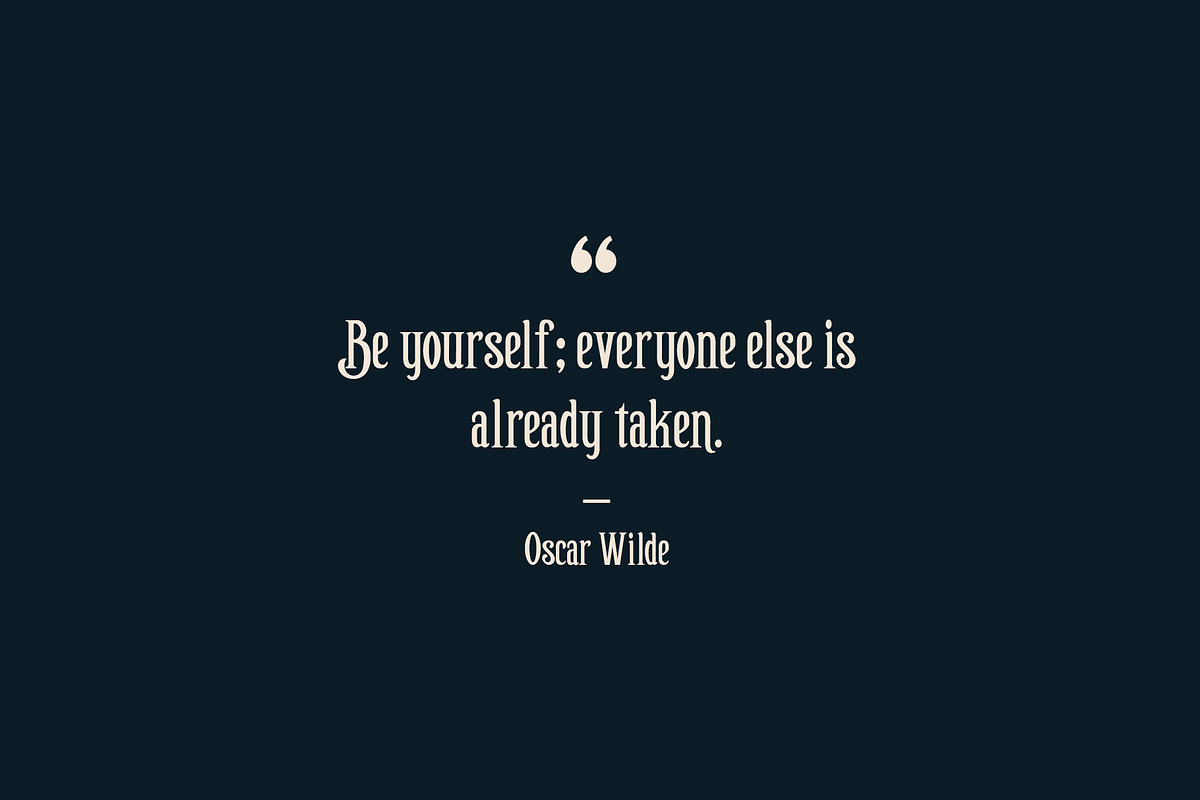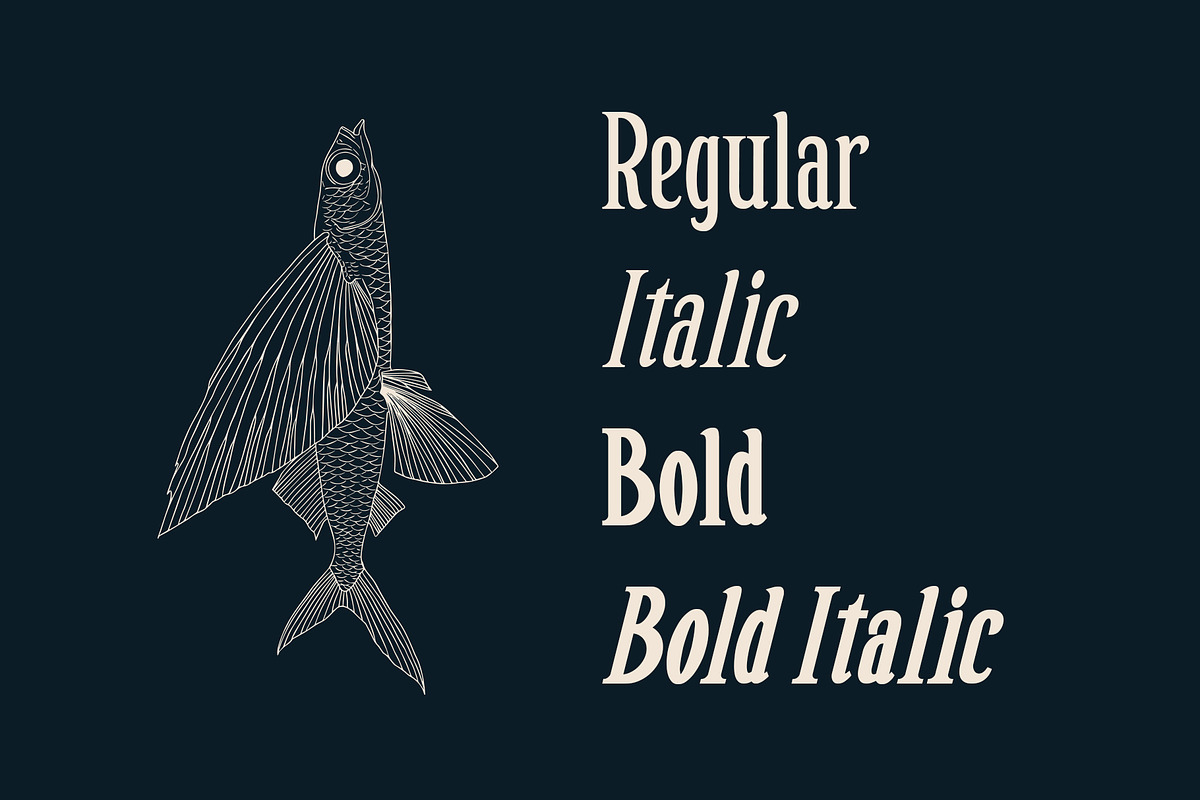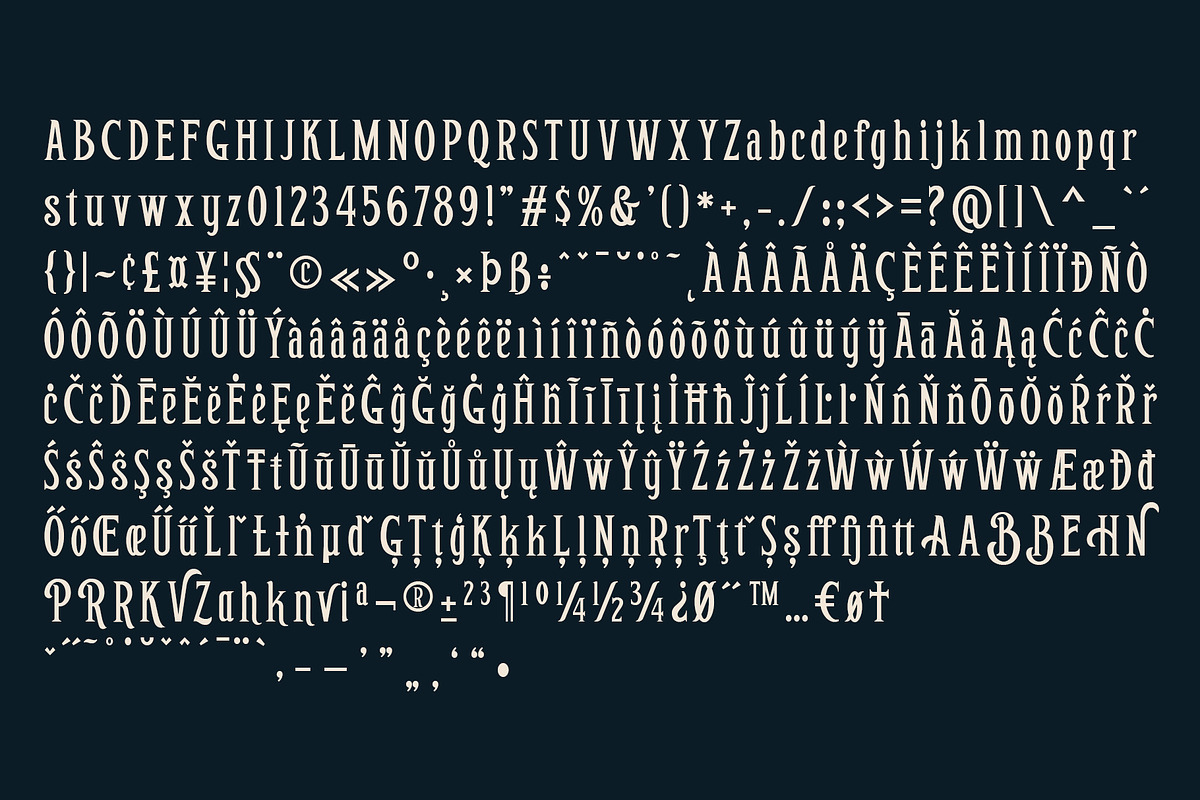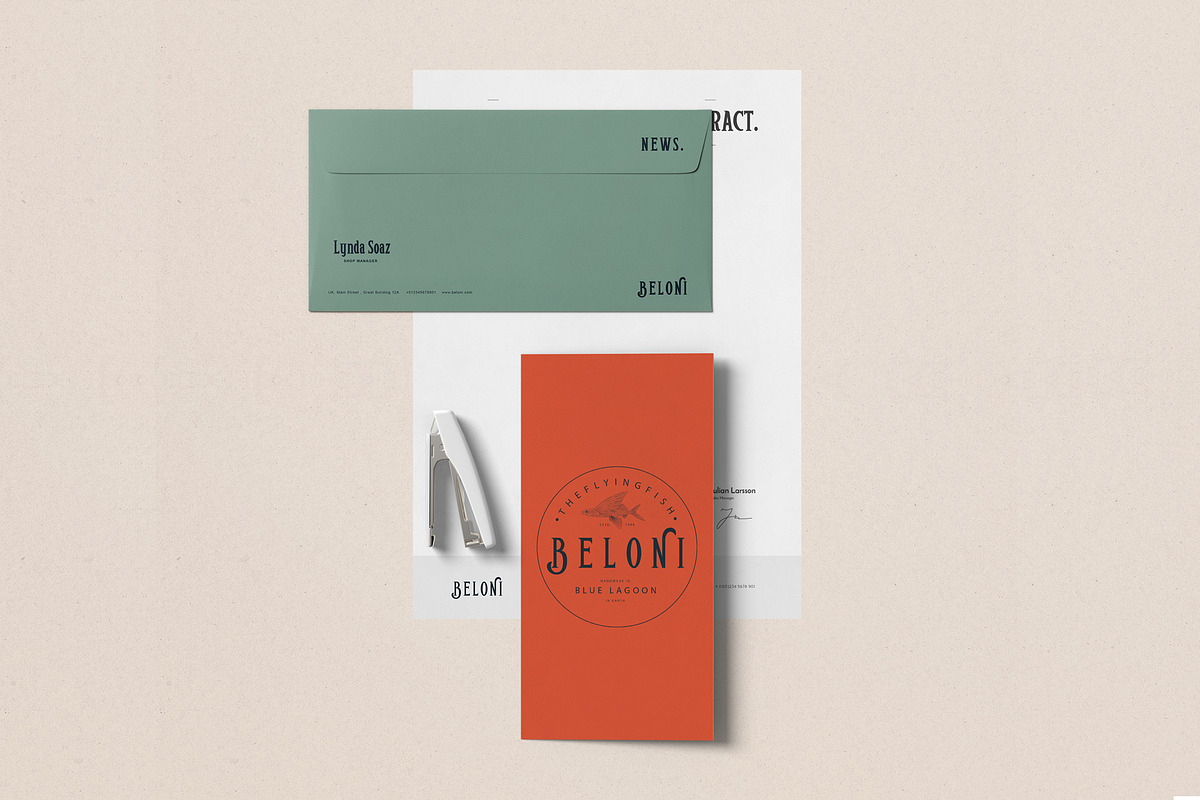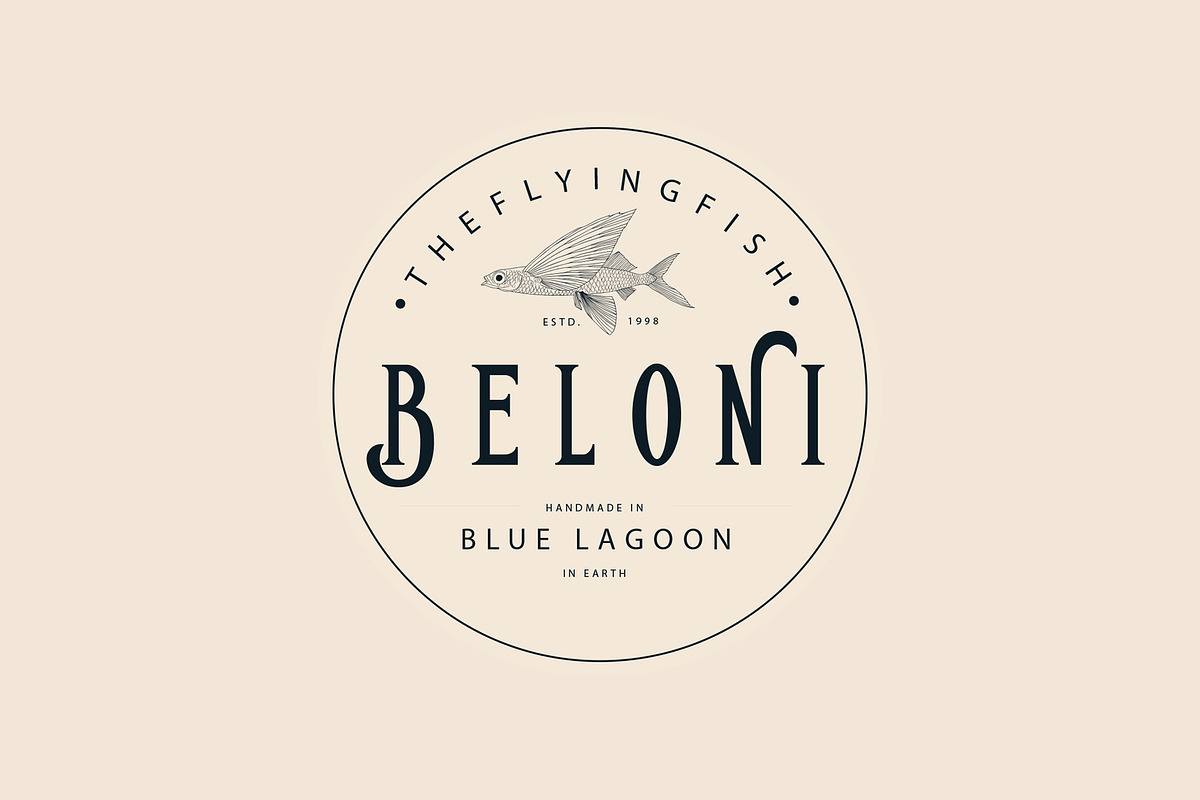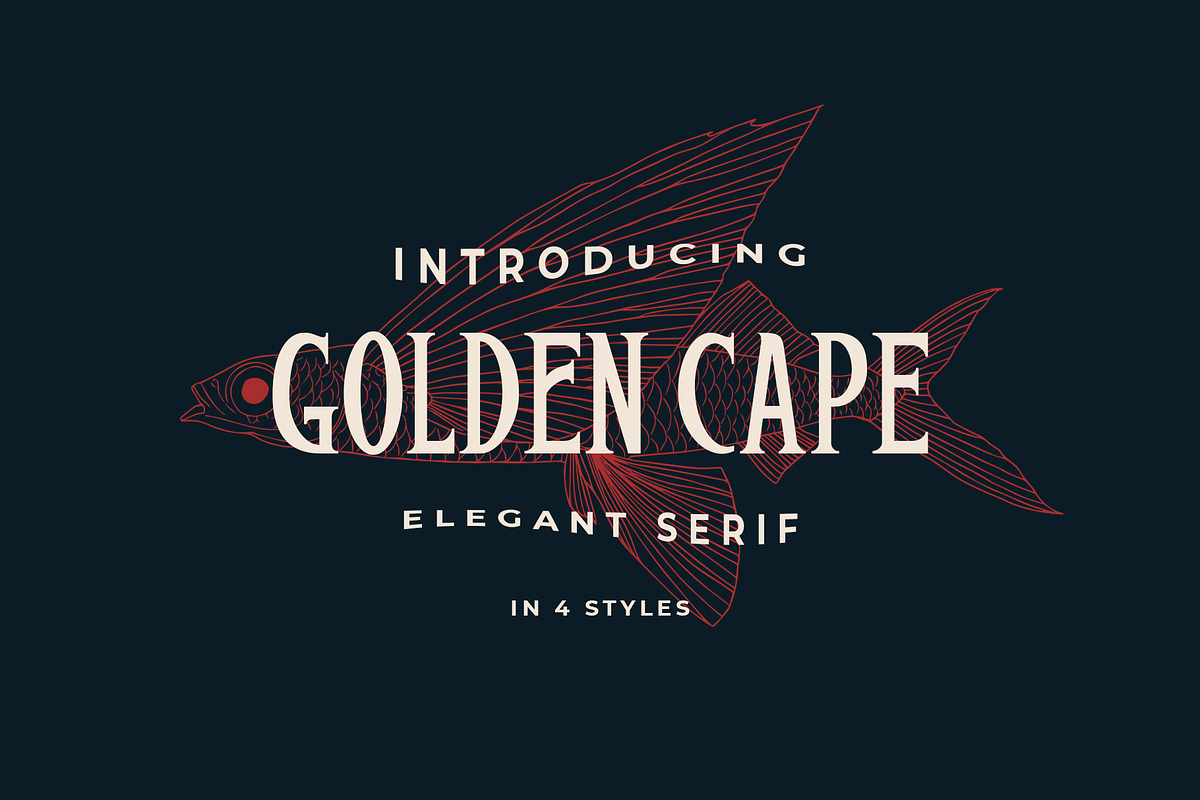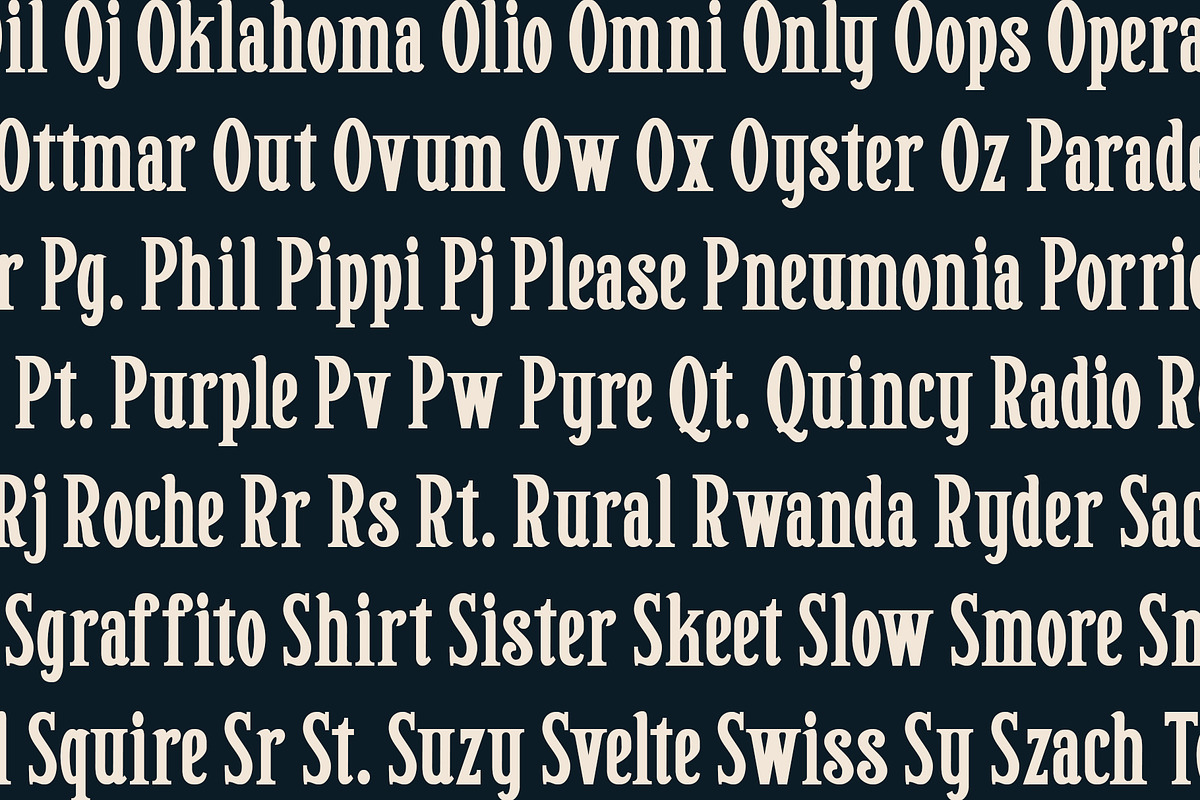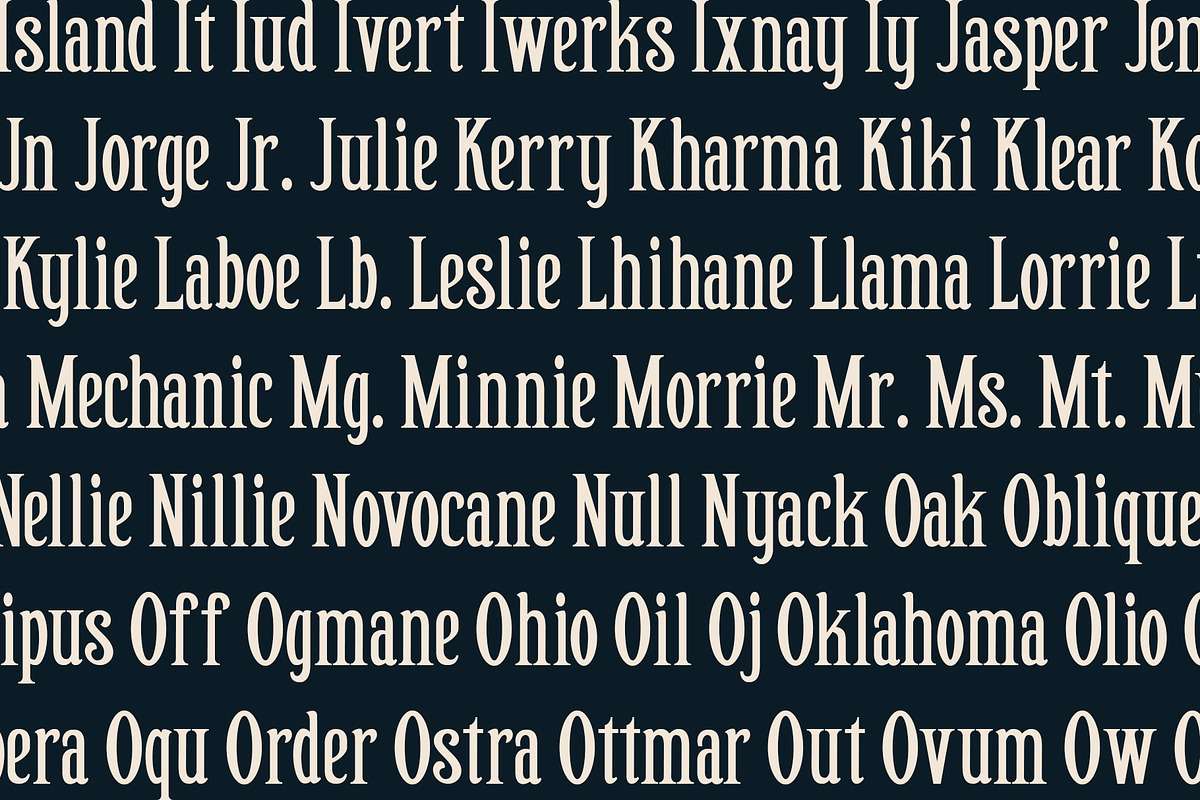
Golden Cape Font + Bonus
Golden cape is a classic and elegant type serif typeface. This font has 4 styles that can be used for various graphic design needs such as, wordmark logos, branding, cards, posters and others.
- Multilanguange
- Alternates
- Golden Cape Regular
- Golden Cape Italic
- Golden Cape Bold
- Golden Cape Bold Italic